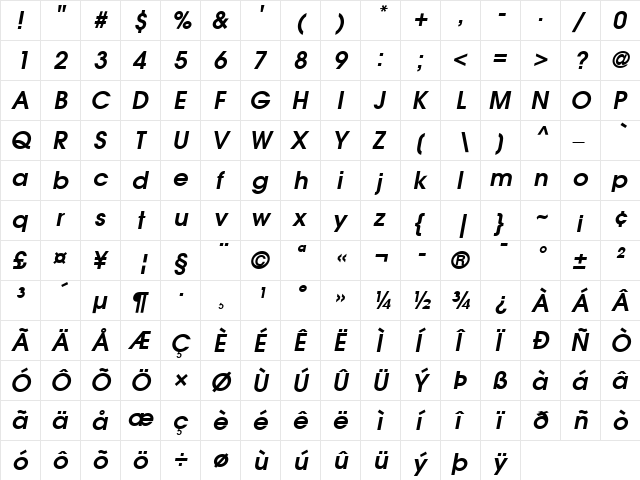
AvantGarde LT Book Bold Italic Font Preview
AvantGarde LT Book Bold Italic
AvantGarde LT Book Bold Italic Font Details
Design Context for AvantGarde LT Book Typeface
AvantGarde LT Book takes a measured approach to typography — its balanced proportions and neutral character make it a reliable workhorse for both digital and print work. Its italic angle brings a sense of urgency and motion to the letterforms. Its bold stroke weight gives it real presence on the page.
Pro Tip: Use AvantGarde LT Book for emphasis, pull quotes, and subheadings where its slanted energy can add rhythm to the layout.